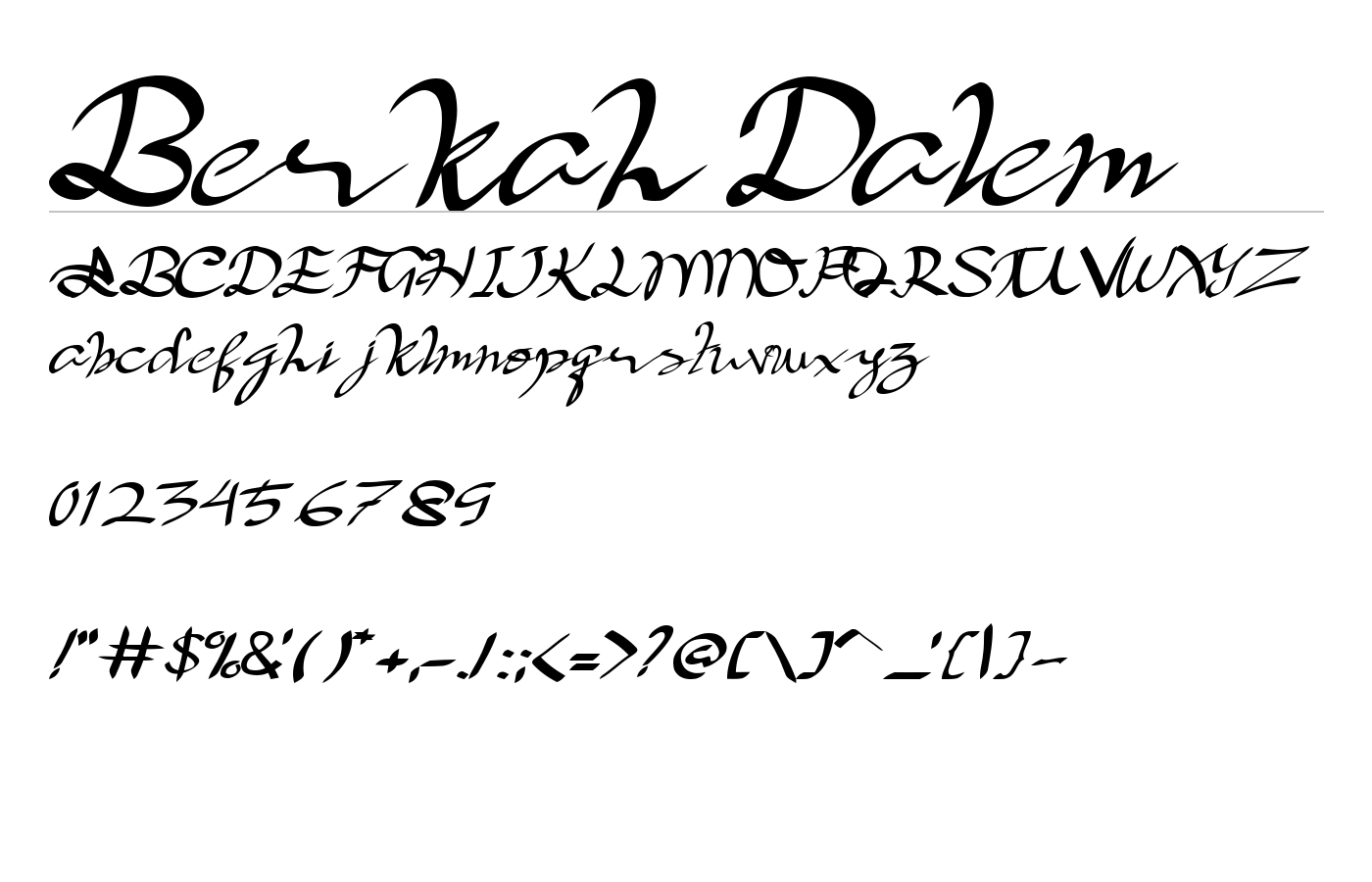
Berkah Dalem is an elegant script font with a fluid, handwritten style that features a mix of thick and thin strokes lending it a dynamic, artistic flair. Its tall, slender letterforms and unique calligraphic details create a sophisticated yet approachable feel, making it ideal for creative branding, invitations, and decorative headlines. This font works wonderfully where a stylish, personal touch is desired without sacrificing readability.
Berkah Dalem Font
About Berkah Dalem Font
| Font family | Berkah Dalem Font |
| Designer | AndreyFD |